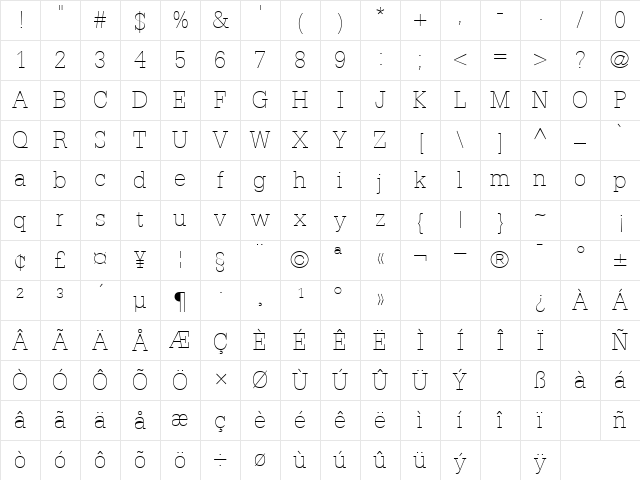
EgotistThin is a composed and adaptable typeface that performs quietly and consistently across a wide range of design contexts. Its slender proportions lend an understated elegance to any composition.